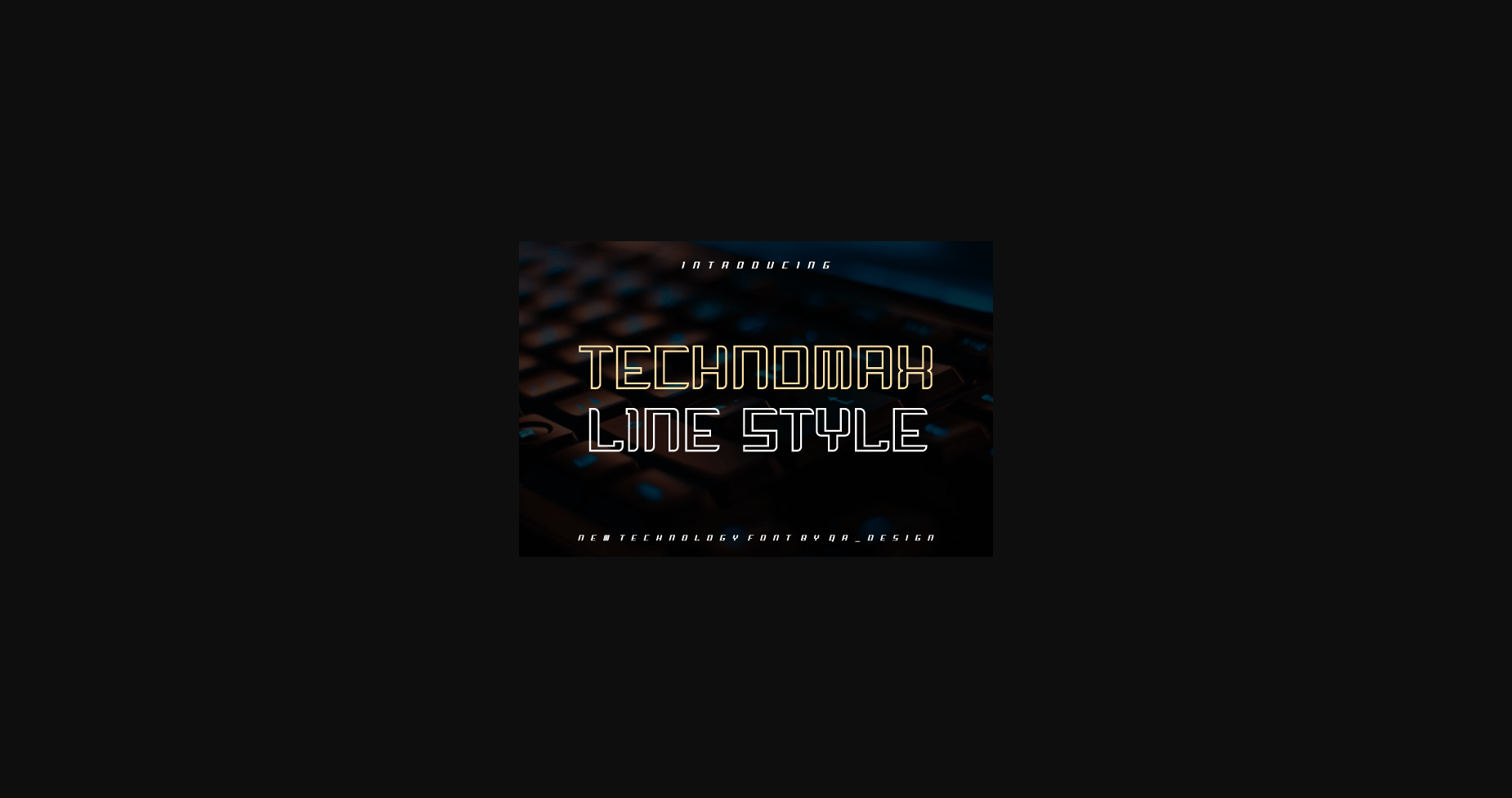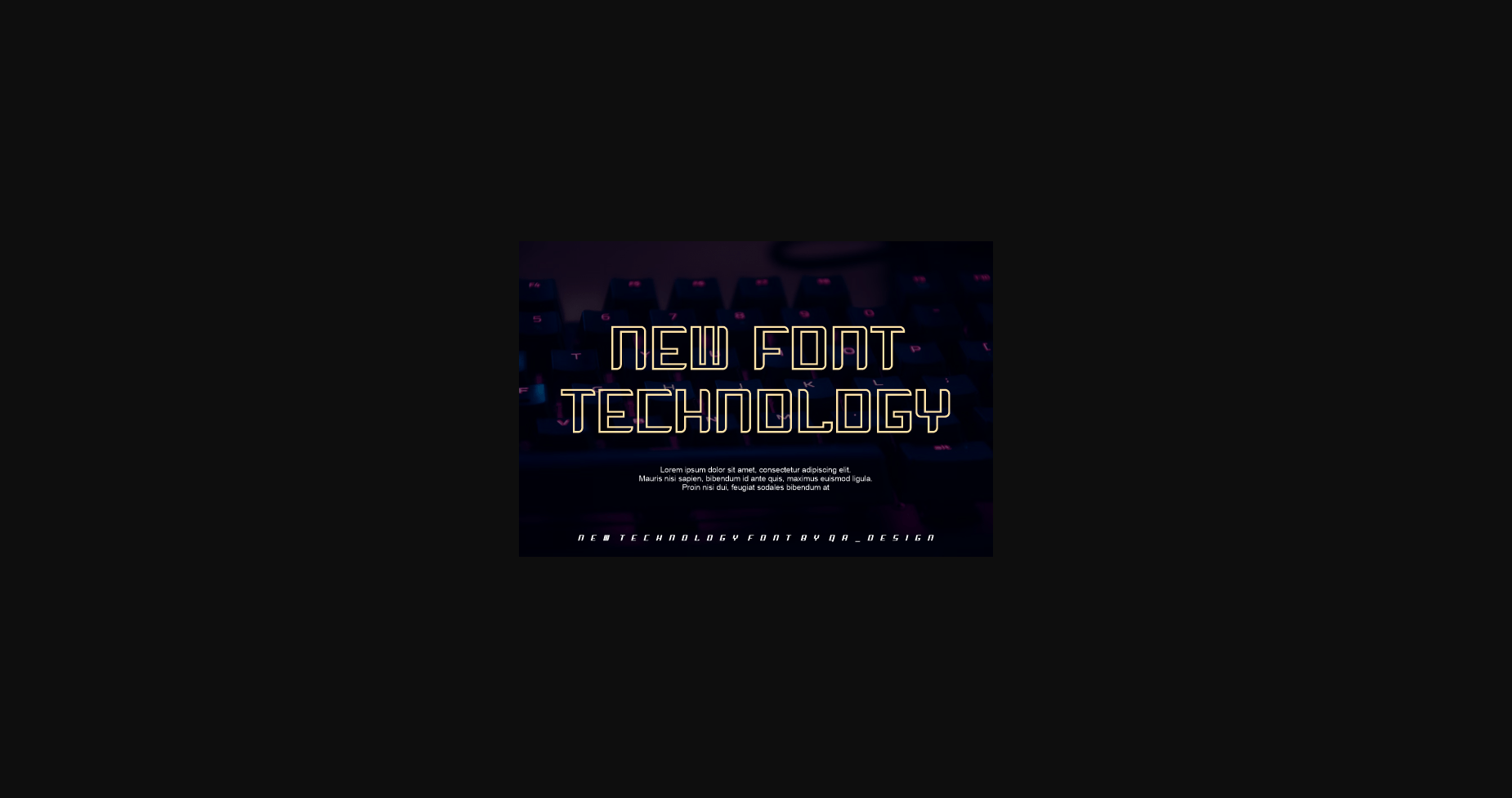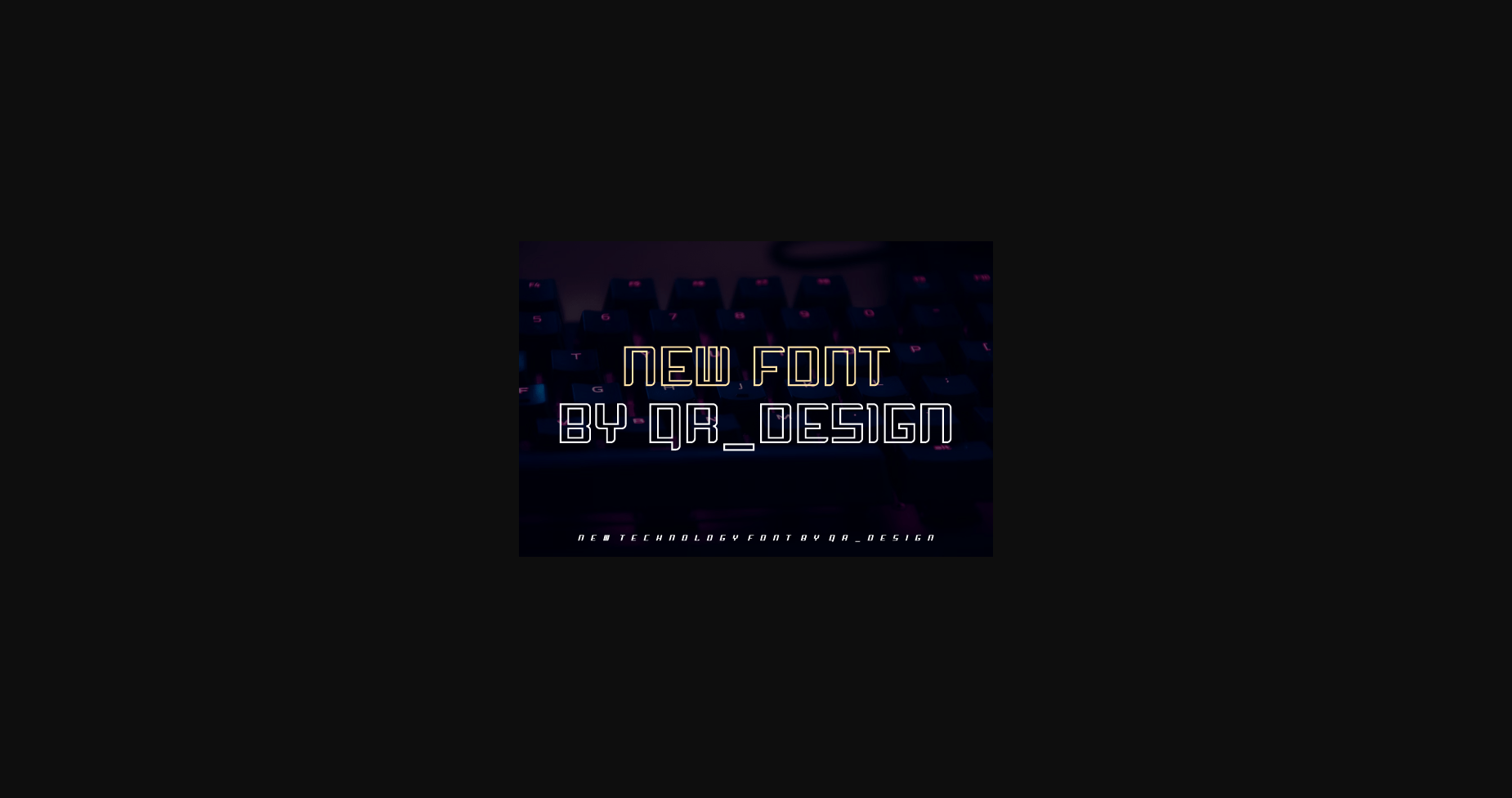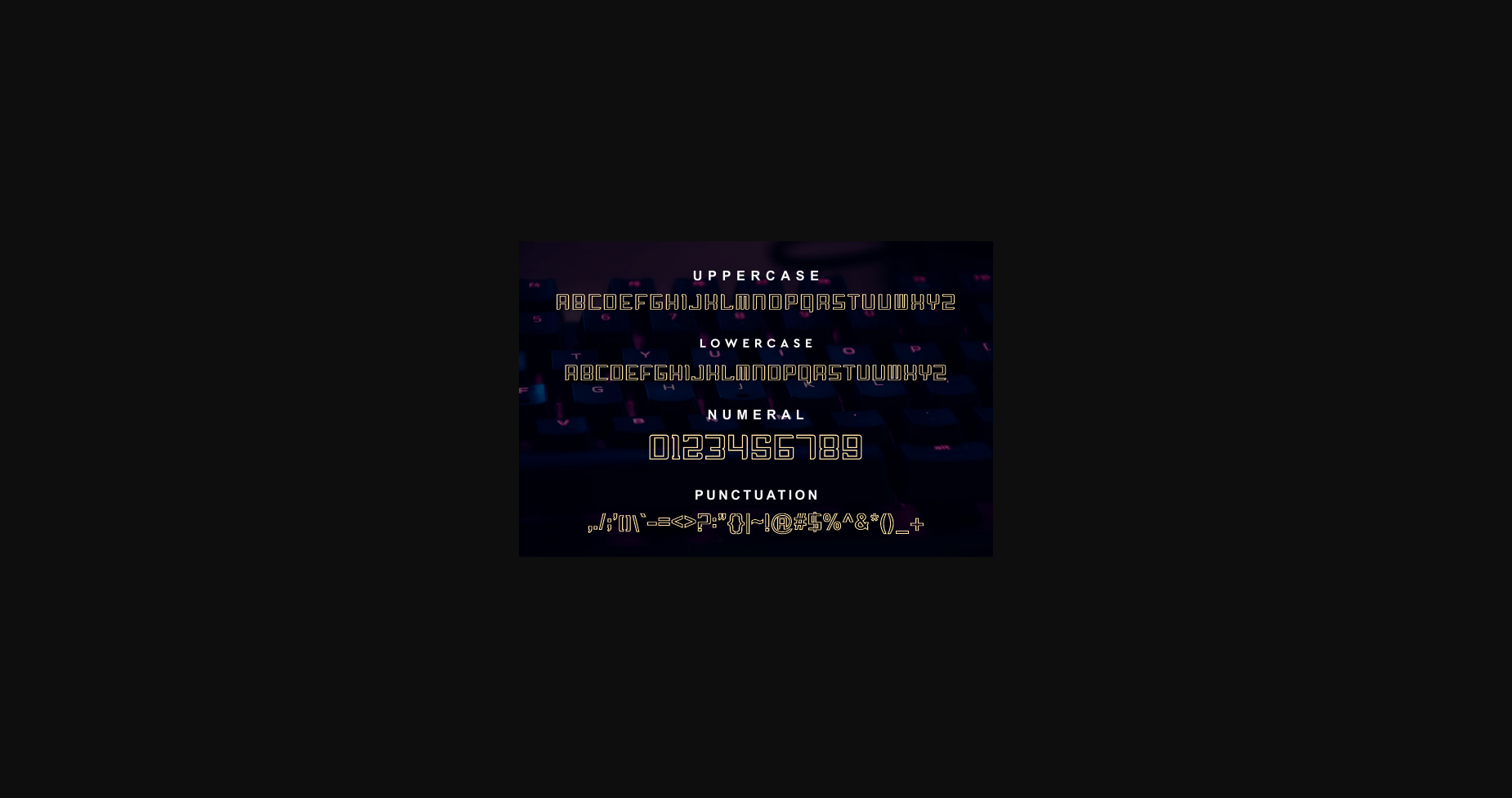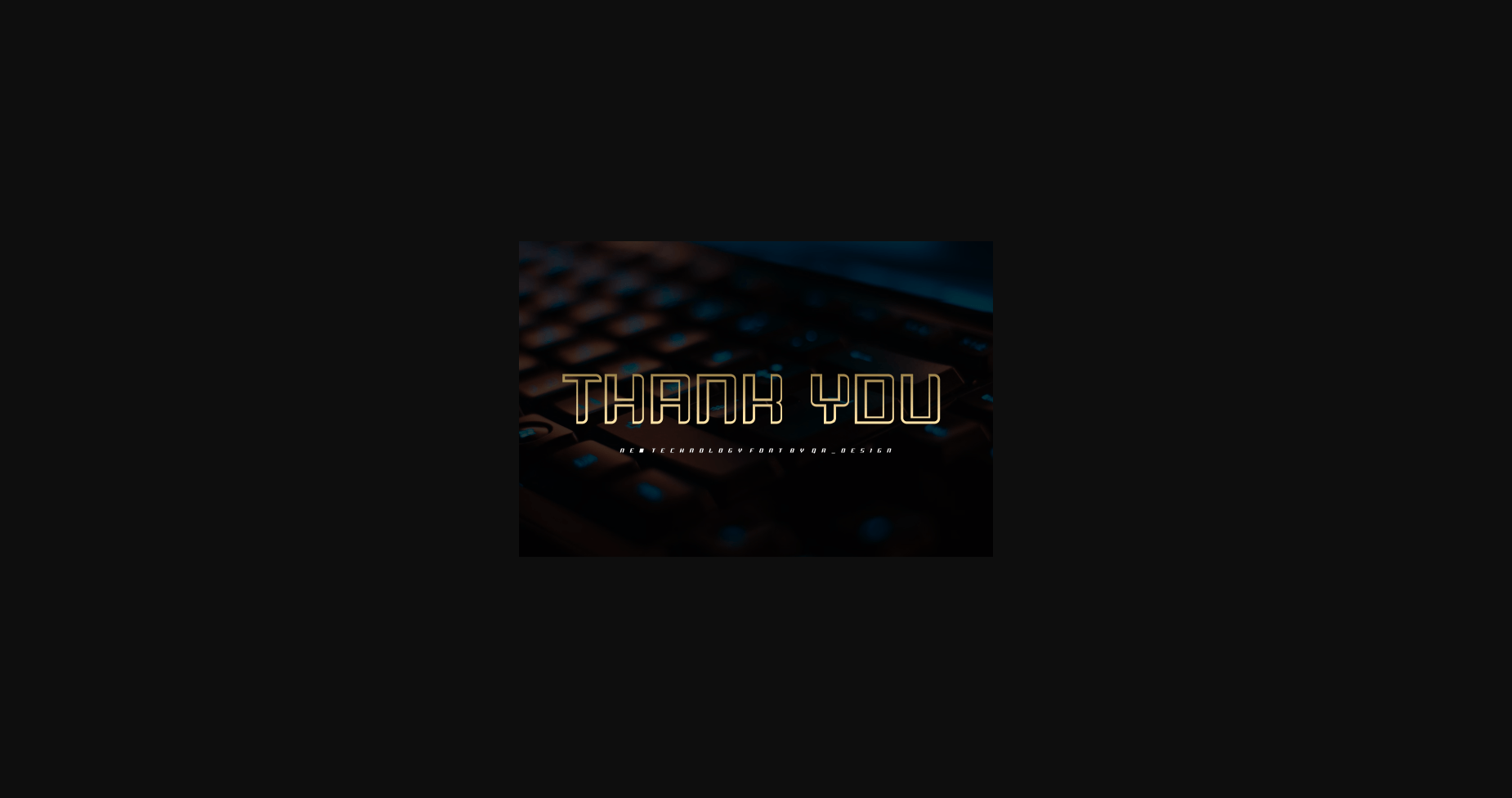
HomeSans Serif FontsTechnomax Font Sans Serif Fonts Technomax Font FacebookXPinterestWhatsApp 1 of 7 ... Technomax Font Poster 2... Technomax Font Poster 3... Technomax Font Poster 4... Technomax Font Poster 5... Technomax Font Poster 6... Technomax Font Poster 7... About Technomax Font Technomax Line – Modern Font is a bold and authentic display font. The font is suitable for any branding project like logo, t-shirt printing, e-sport, and many more. Outstanding in a wide range of contexts. DOWNLOAD NOW People also explored Witch Font Mother Font Duchess Font Pretty Bestie Font Kalia Monogram Font Mageland Font Melatea Font Lemonella Font The Black Hat Font 392 0 TagsTechnomax Font Previous articleBlade Rush FontNext articleSemi Pixel Font LEAVE A REPLY Cancel reply Comment: Please enter your comment! Name:* Please enter your name here Email:* You have entered an incorrect email address! Please enter your email address here Website: Save my name, email, and website in this browser for the next time I comment. Personal Use Free Where the Cookies Personal Use Free Read more about this font Anggiana Personal Use Free Read more about this font Ayam Bakar Personal Use Free Read more about this font Bintang Noela Personal Use Free Read more about this font BLOG How to Cut Any Font on Cricut: Convert a Font to SVG (Free) Turn any font into a clean SVG so it cuts crisp on Cricut - a quick 3-step workflow using a free font-to-SVG tool. 5 Fonts That Will Dominate Design Trends in 2026 The 10 Best Handwriting Fonts to Add Personality to Your Designs Using Fonts in Digital Marketing: Tips to Strengthen Your Brand Identity